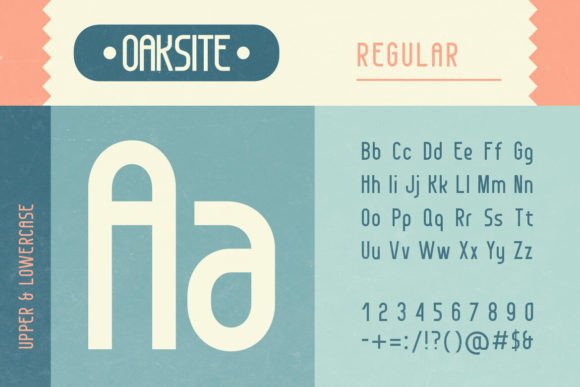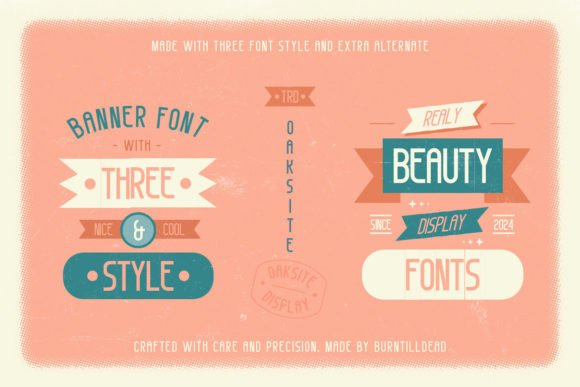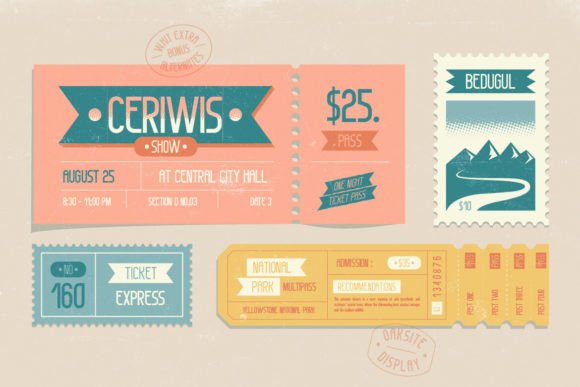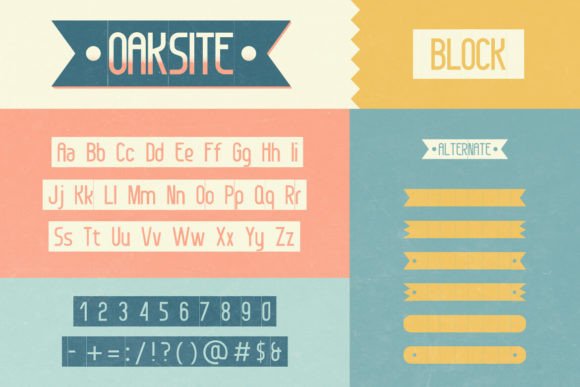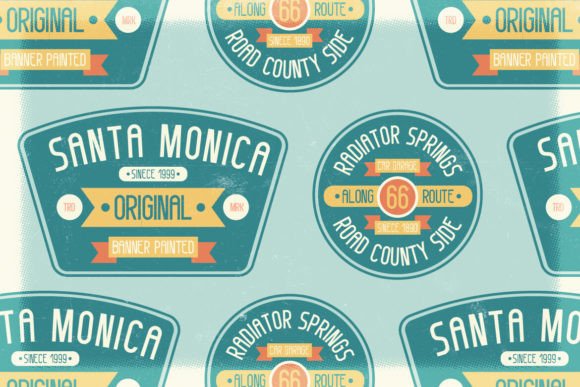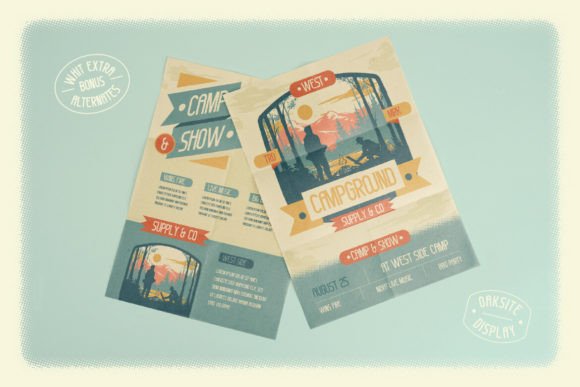
Introduction to Oaksite Font
Have you ever stared at a blank canvas, struggling to find the perfect font to elevate your design project? You know the feeling – the blank page stares back, taunting you to bring your creative vision to life. That’s where Oaksite Font comes in, a simple yet powerful design resource that can breathe new life into your banners, posters, and logos.
With its clean and modern aesthetic, Oaksite Font is the perfect addition to any creative project. Available in three styles – regular, block, and block slant – this versatile font is ideal for designers seeking a bold yet minimalist impact. Whether you’re working on a fun project or a high-quality design, Oaksite Font is a valuable resource that can help you achieve your creative goals.
Key Features of Oaksite Font
- High-quality design resource with a modern and sleek aesthetic, perfect for creative projects.
- Includes a range of glyphs and characters, making it suitable for a variety of creative projects, from logos to typography.
Honest Review: Oaksite Font
I recently stumbled upon the Oaksite Font, and I must say it’s been a game-changer for my design projects. As a designer, I’m always on the lookout for high-quality fonts that can elevate my creative work, and Oaksite Font definitely delivers.
What works well: ✨ The font has a unique, modern aesthetic that’s perfect for contemporary designs. It’s incredibly versatile and can be used for a wide range of creative projects, from logos to brochures. The transparent background option is also a huge plus, allowing for seamless integration with any design resource.
- Perfect for contemporary designs
- Wide range of creative applications
Overall impression: I’m thoroughly impressed with the Oaksite Font and would highly recommend it to fellow designers. Its unique aesthetic and high-quality design make it a valuable addition to any design resource. Give it a try and see how it can elevate your next creative project!
Tips for Getting the Most Out of Oaksite Font
For optimal results, use the Oaksite Font in combination with other design elements that match its style. Experiment with different font sizes and colors to create a visually appealing design.
The Oaksite Font is suitable for various design projects, including:
- Website design